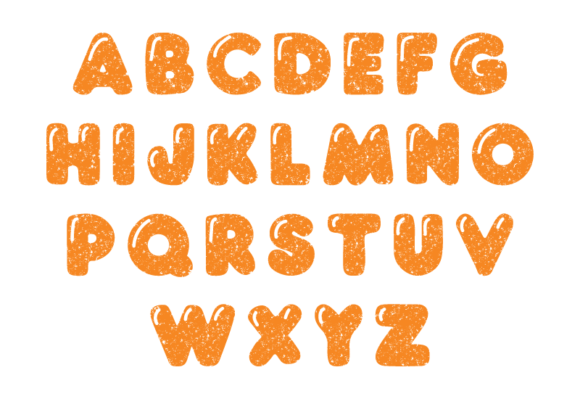
Kids Bubble Grunge Font
Experience the exuberance of the Kids Bubble Grunge Font, a strikingly vivacious typographic display that beautifully encapsulates the charm of childhood. This font is masterfully designed to portray a joyfully unrestrained aura, bursting with characters that are reminiscent of the playful scribbles that children often doodle. Each letter in this collection imbues a sense of lighthearted whimsy, making Kids Bubble Grunge Font an irresistible choice for projects that speak to a younger audience. Immerse your creations in a world of youthful creativity with the delightful vitality of the Kids Bubble Grunge Font.